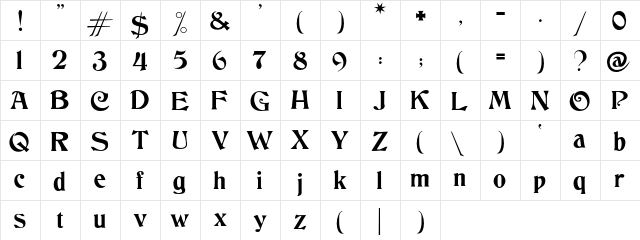
Beaumarchais Regular
Design Context for Beaumarchais Typeface
Beaumarchais is a composed and adaptable typeface that performs quietly and consistently across a wide range of design contexts.